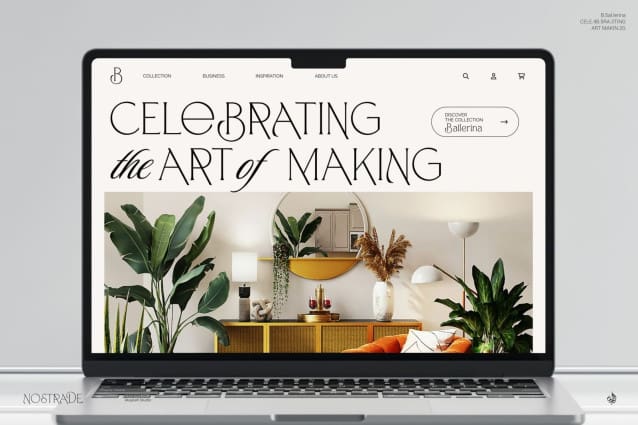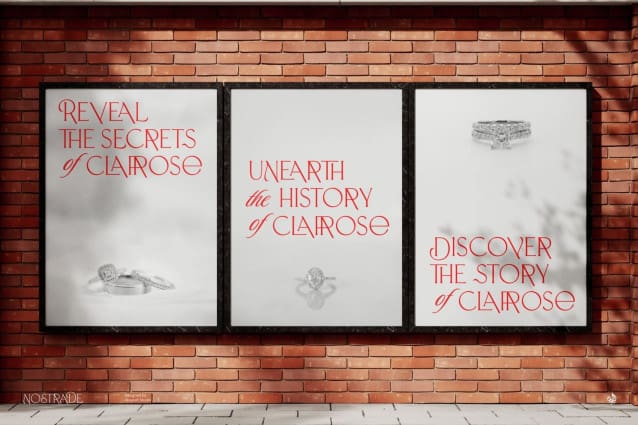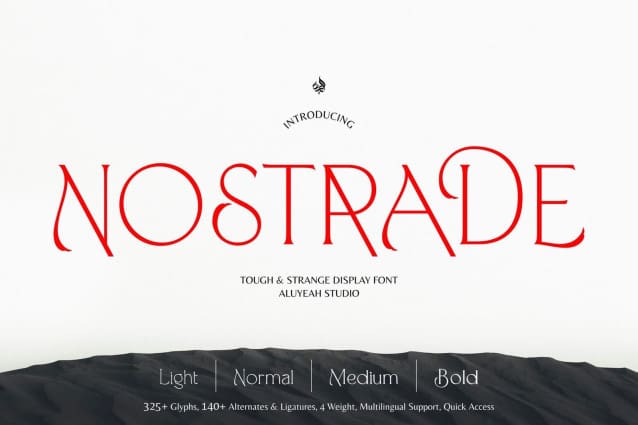
Nostrade Font
Nostrade Font, a tough and strange display font. Add a unique vibe to your work with this versatile font that includes more than 140+ alternates and ligatures. Available in 4 weights with quick access to alternate characters, you can quickly and easily find the perfect match for your project. It will surely add an authentic, tough, strange, unique touch to any design!